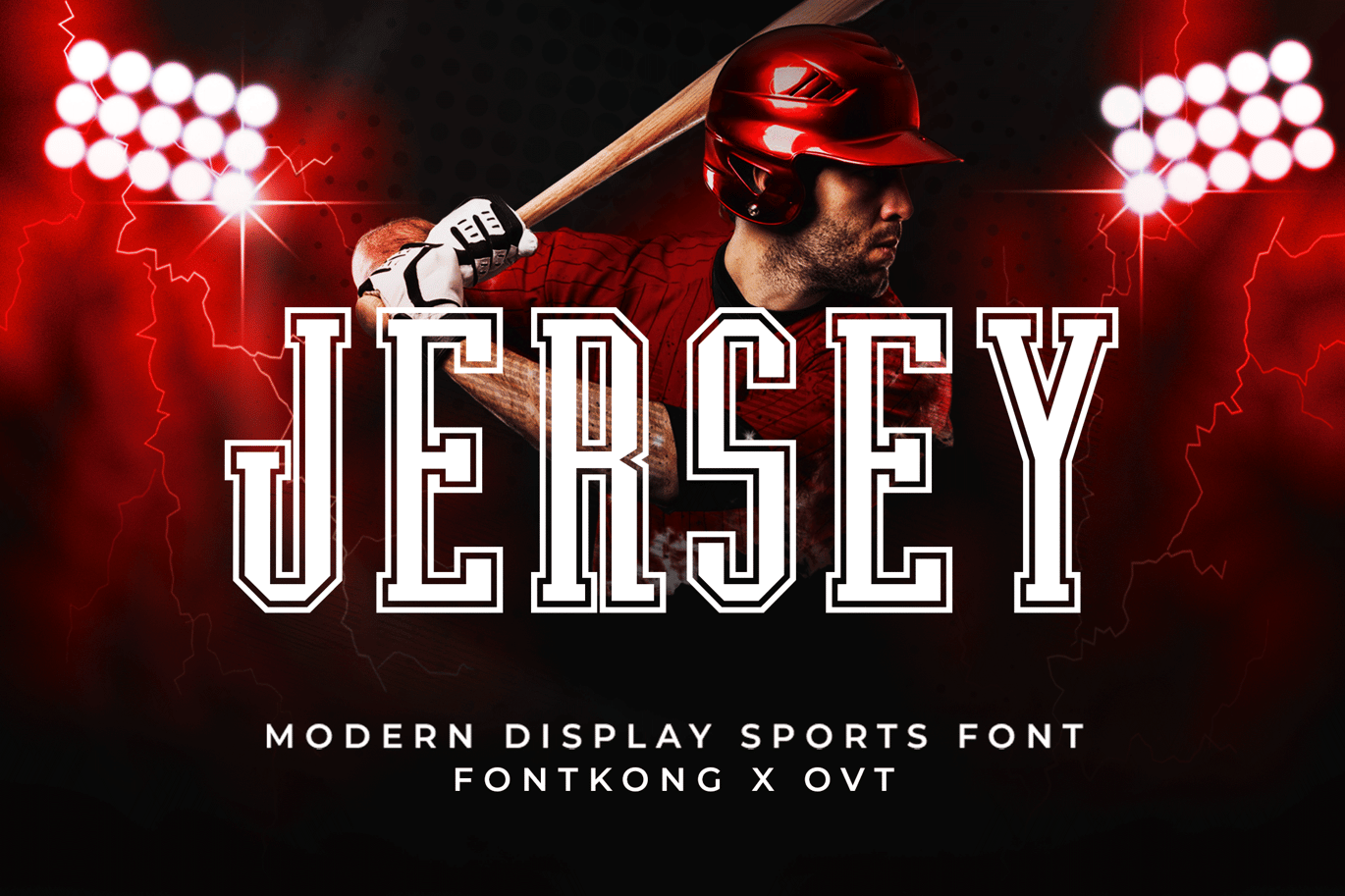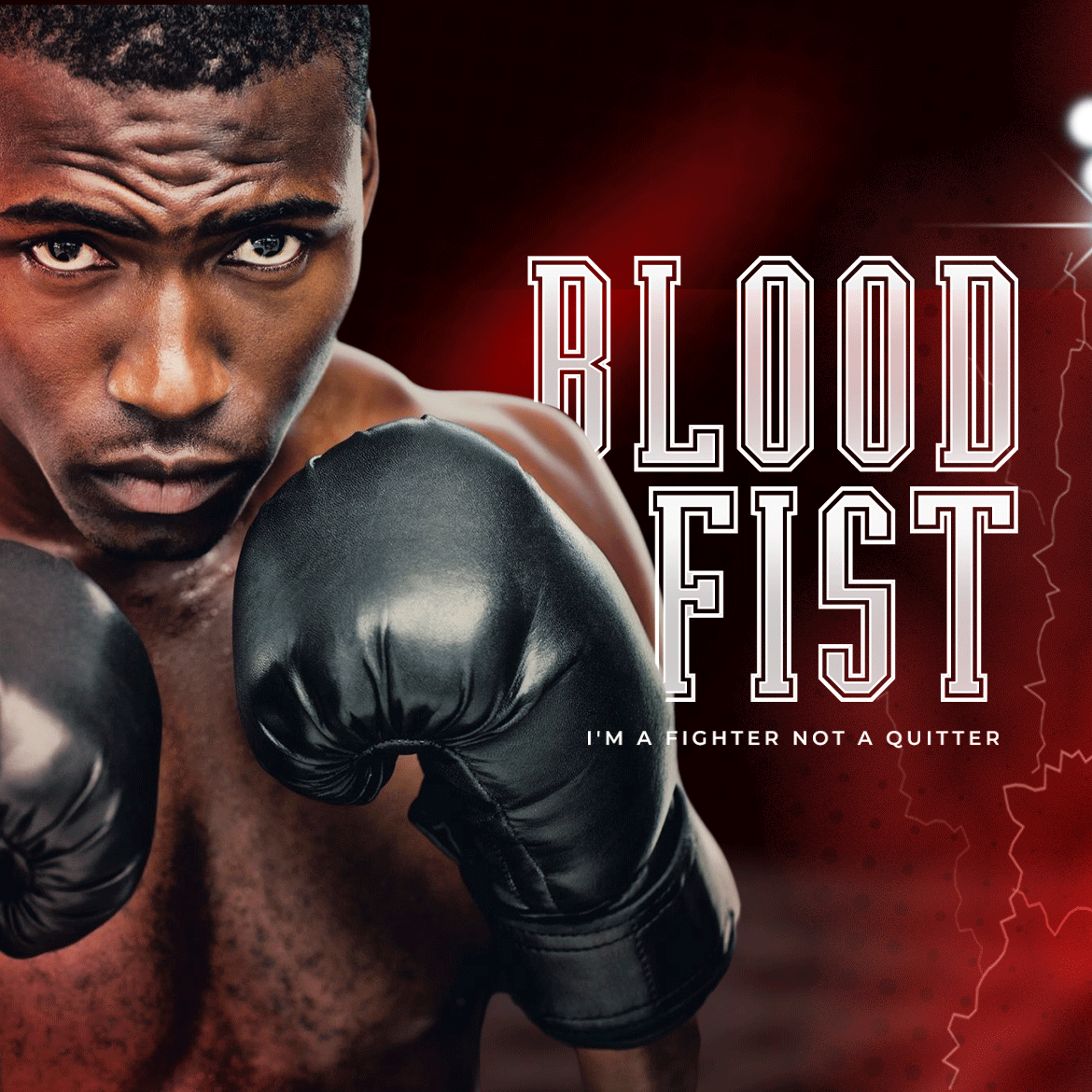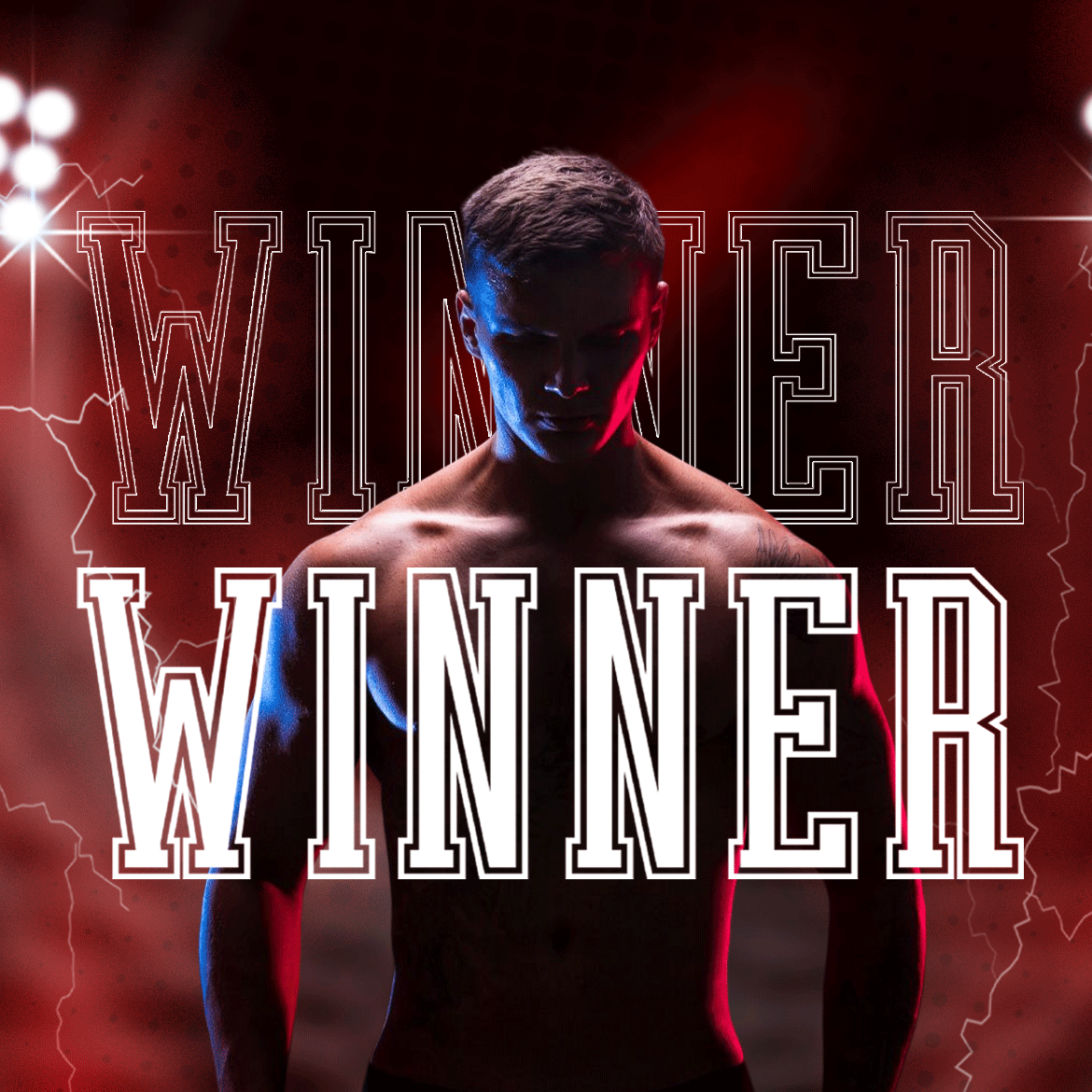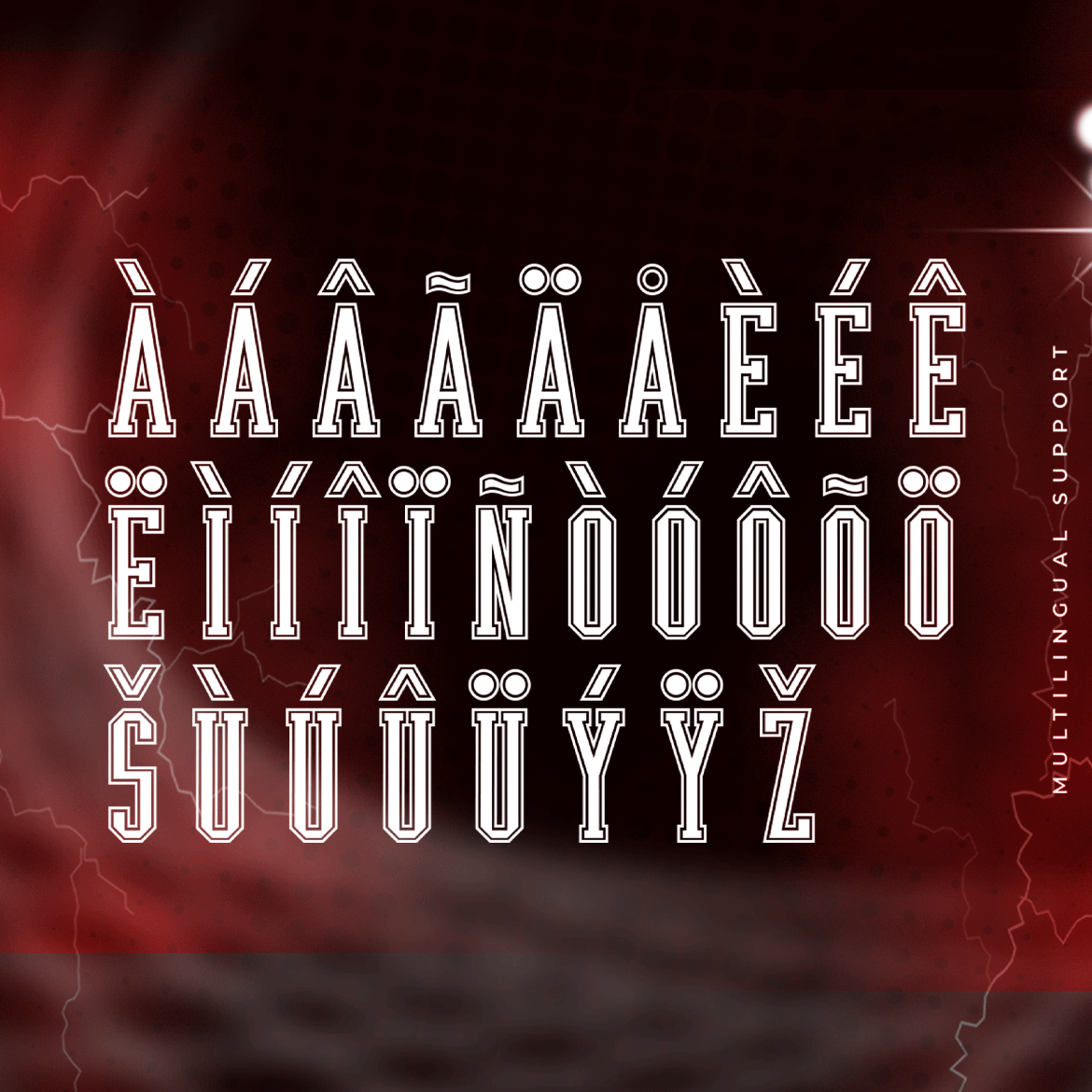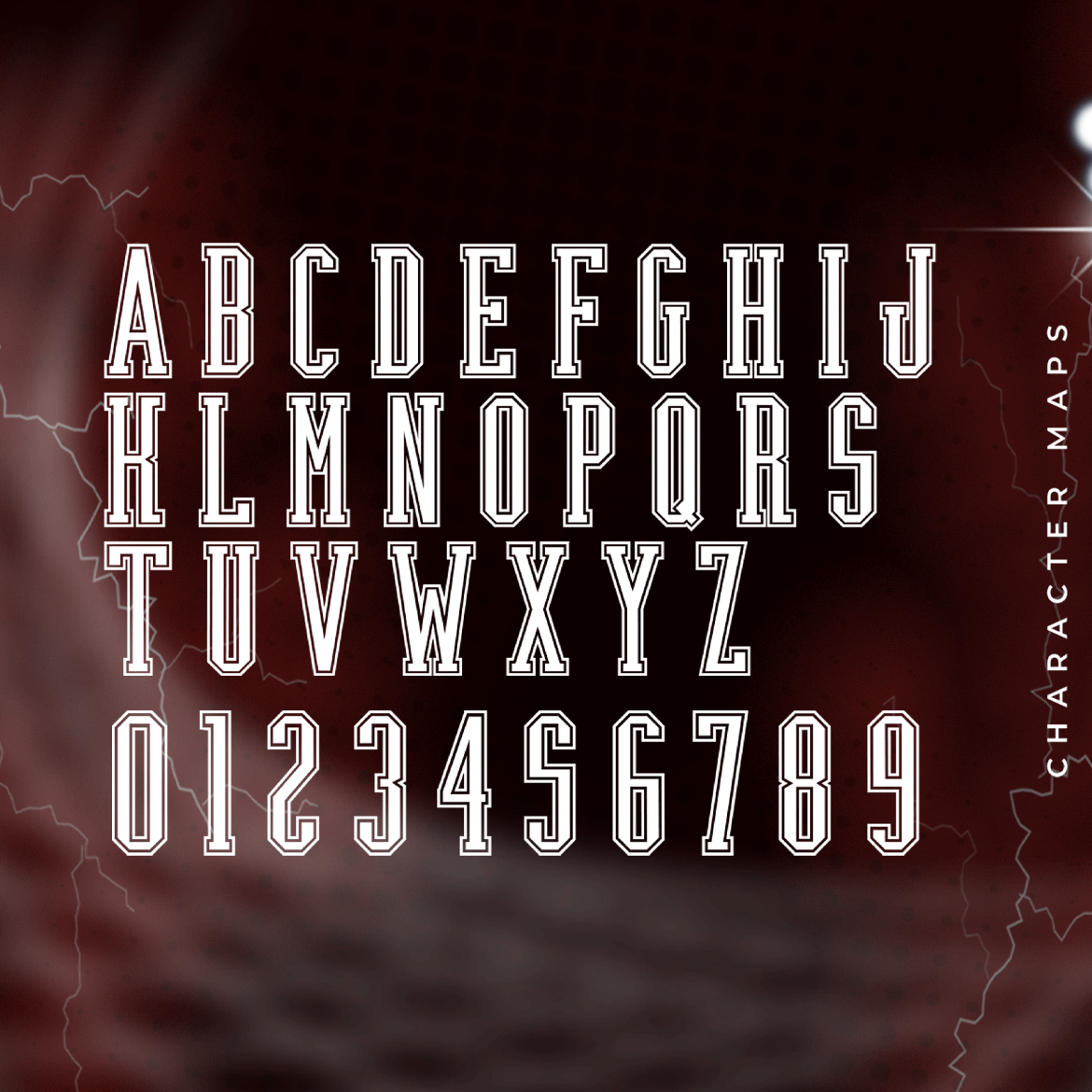
Jersey – Modern Display Sports Font
Introducing “Jersey,” a modern display sports font designed to bring energy and dynamism to your athletic and sports-themed projects. This typeface features strong, bold characters that capture the spirit of competition and teamwork, making it perfect for sports jerseys, team logos, posters, and event flyers.
Ideal for creating eye-catching headlines, player numbers, merchandise, and branding materials, Jersey ensures your text stands out with a powerful, athletic presence. Each character is designed with precision to offer excellent readability and a robust, impactful look.
Jersey includes a complete set of uppercase and lowercase letters, numerals, punctuation marks, and special characters, providing versatility for various design applications. Its modern and sporty design makes it an excellent choice for designers aiming to create vibrant and energetic sports-related designs.
Elevate your sports designs with Jersey, a font that embodies the bold and competitive spirit of athletics.